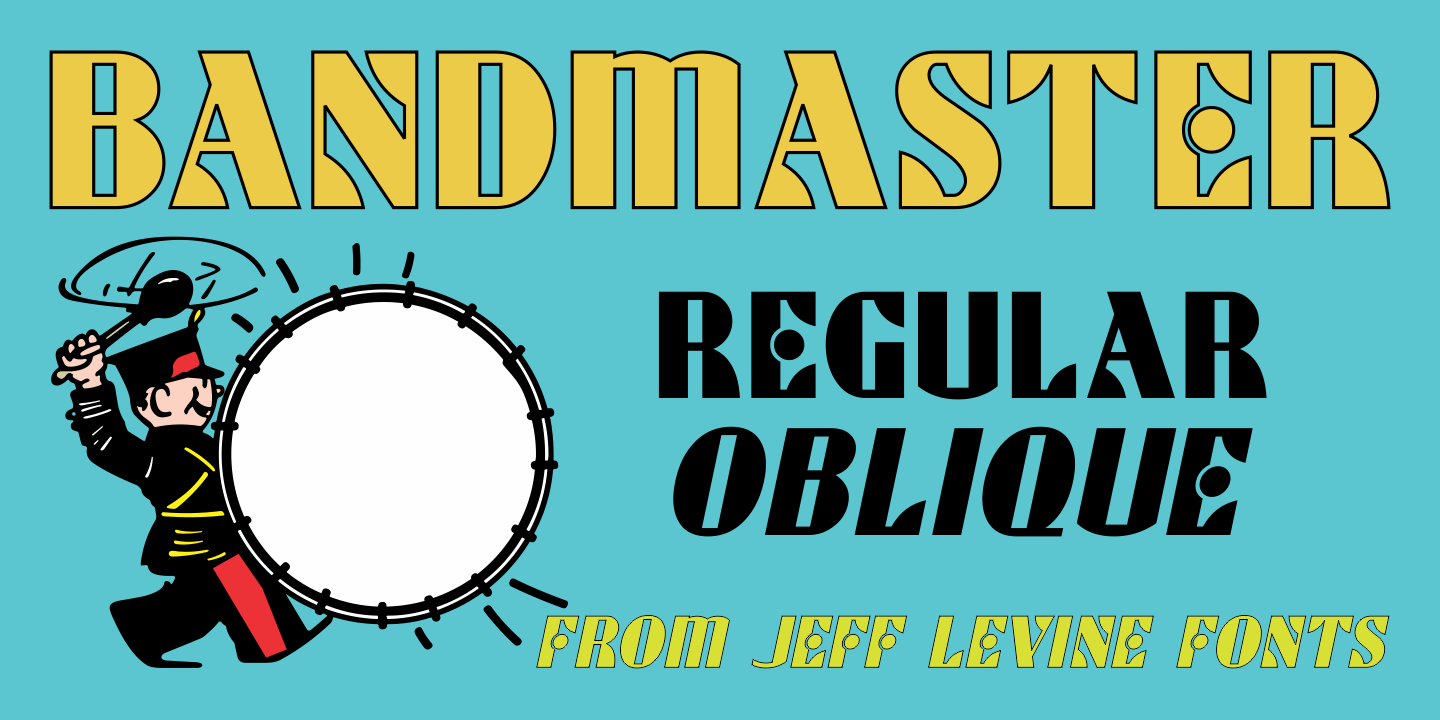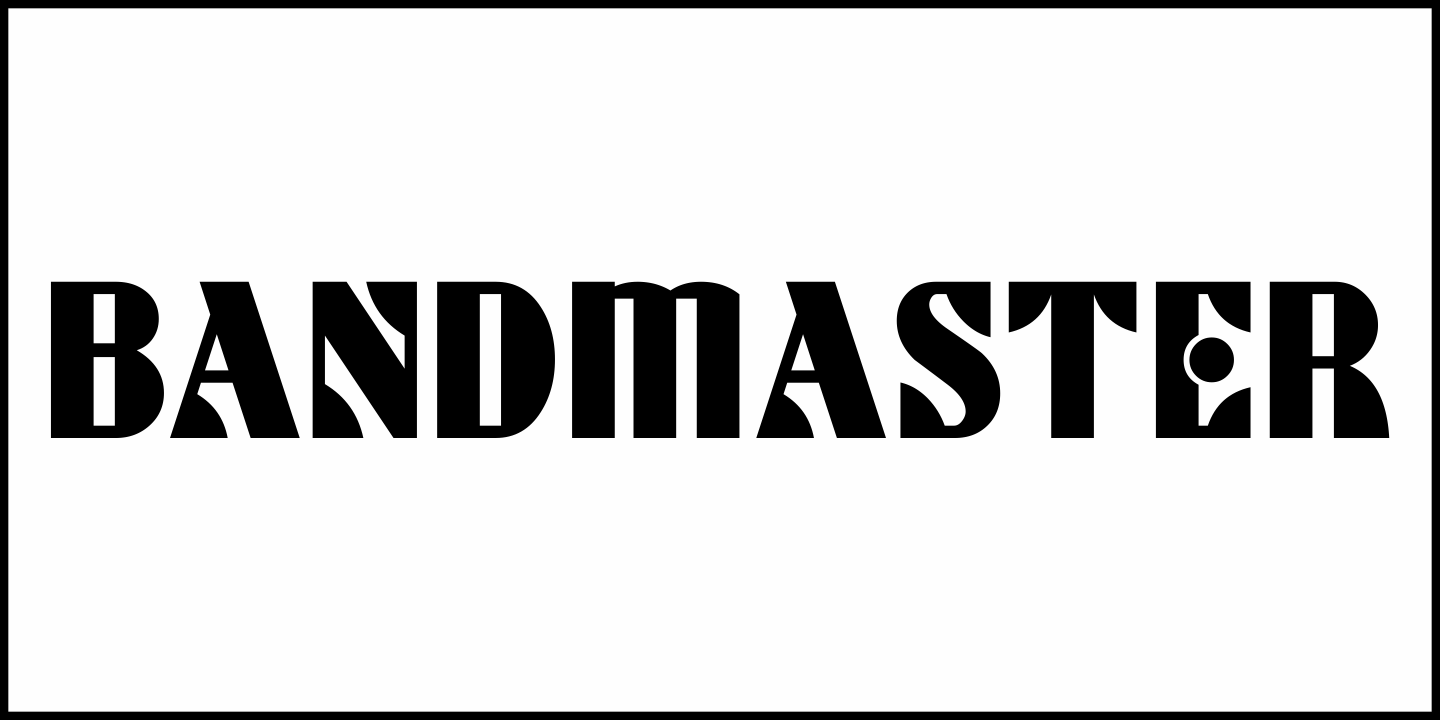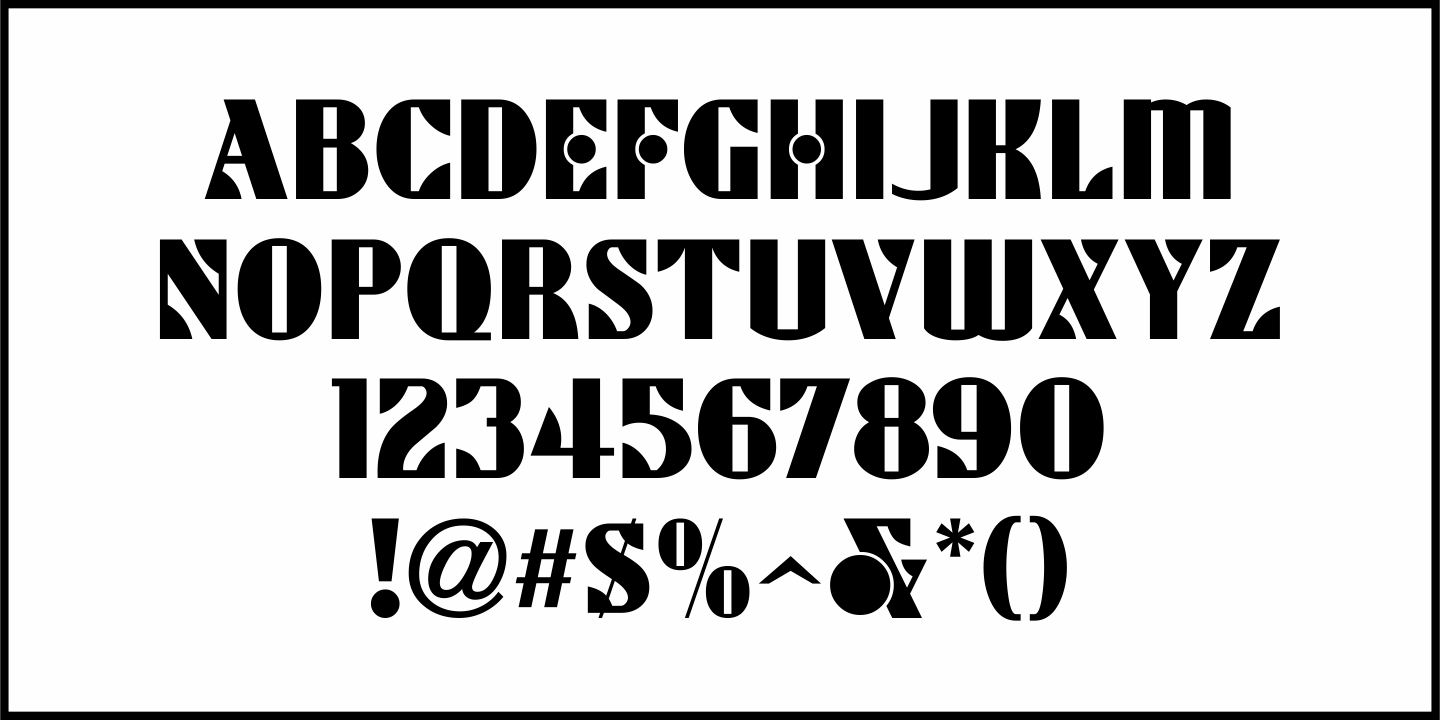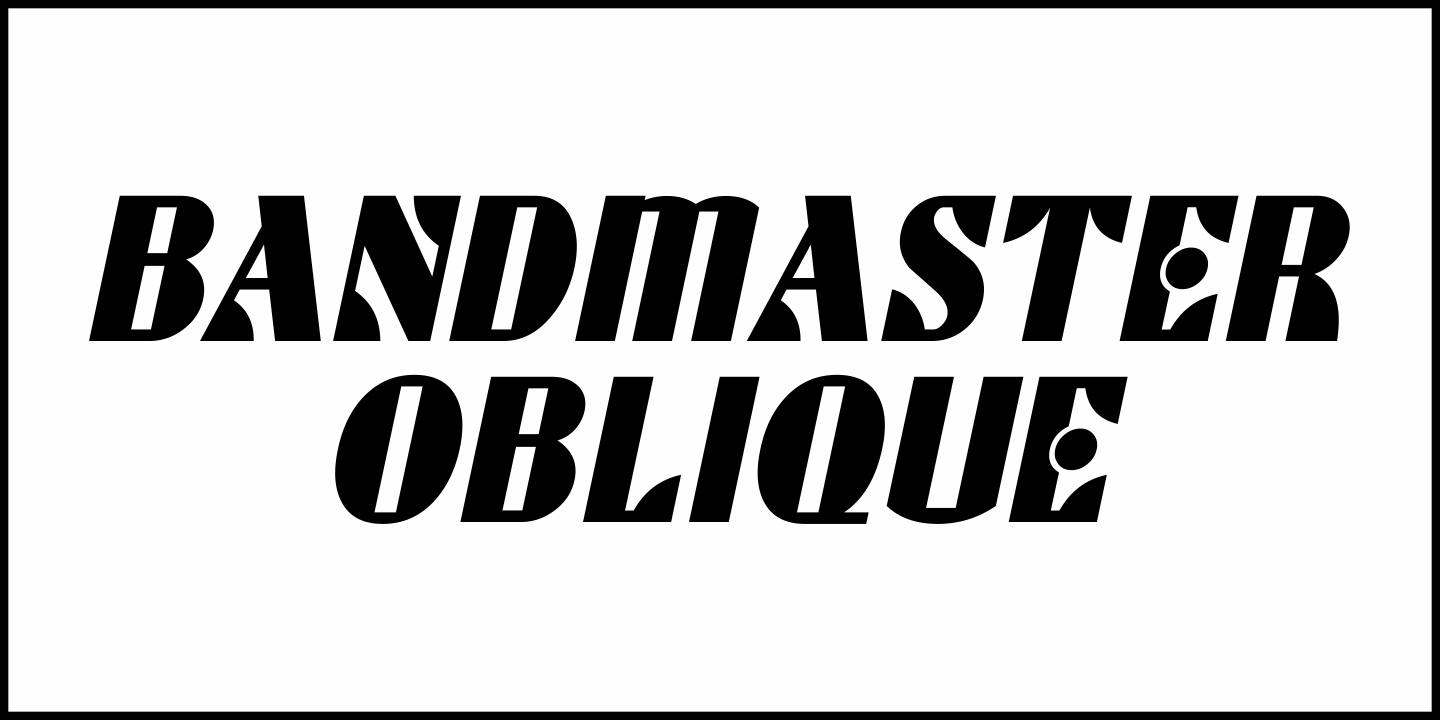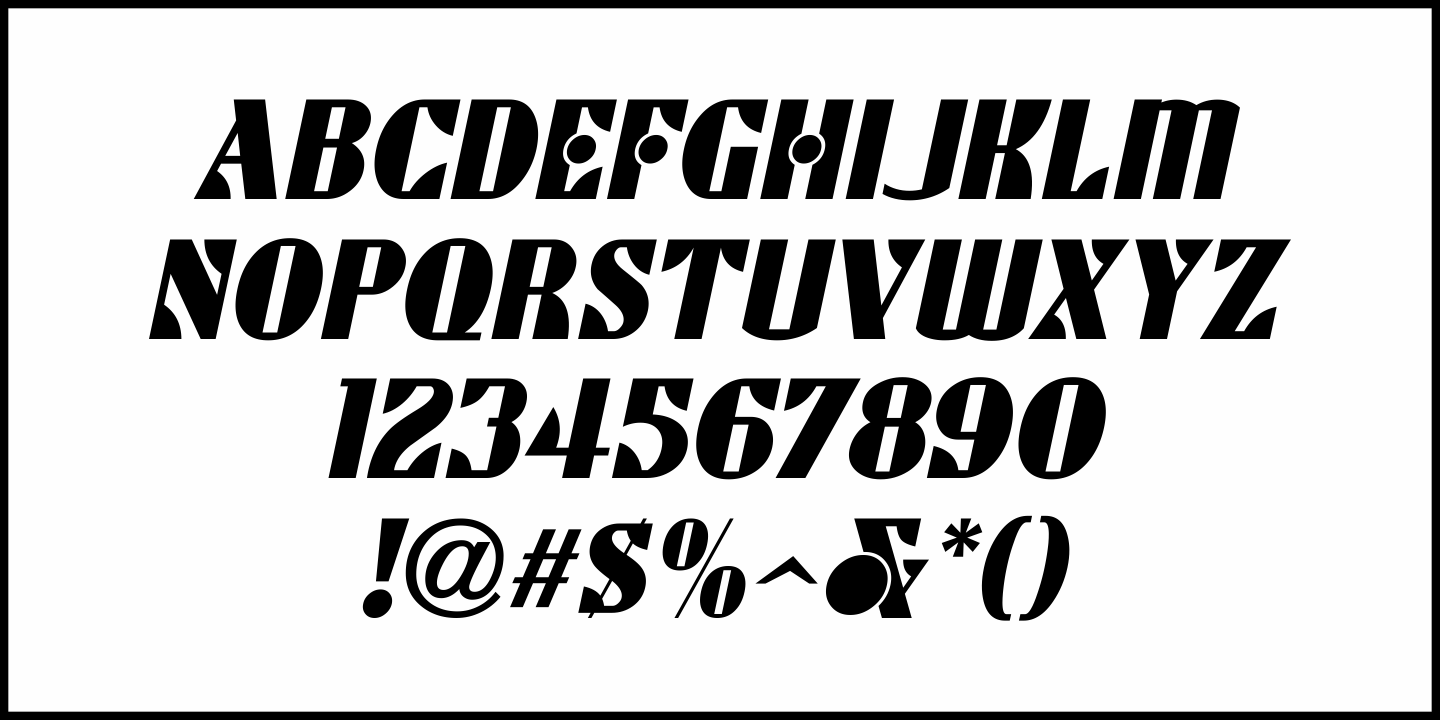
Bandmaster
The opening movie titles from the 1940 musical comedy 'Strike up the Band” (starring Judy Garland and Mickey Rooney) inspired Bandmaster JNL, which is available in both regular and oblique versions.